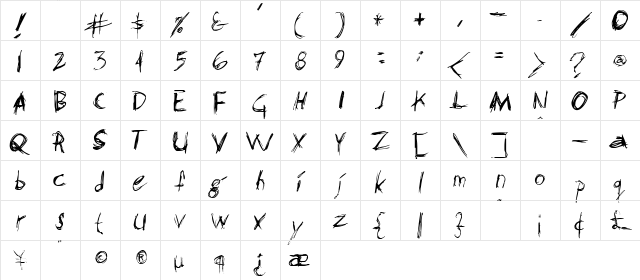
Shashasha Medium
Design Context for Shashasha Typeface
Shashasha is a composed and adaptable typeface that performs quietly and consistently across a wide range of design contexts.